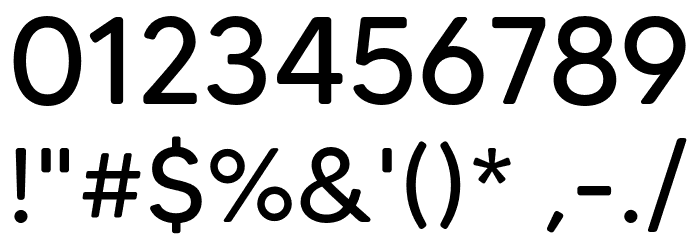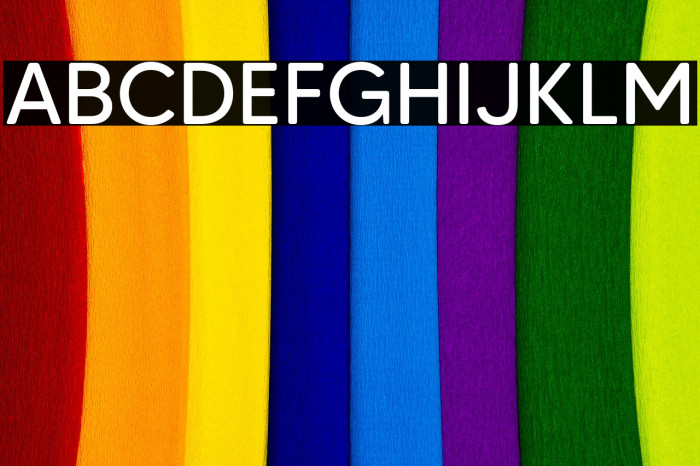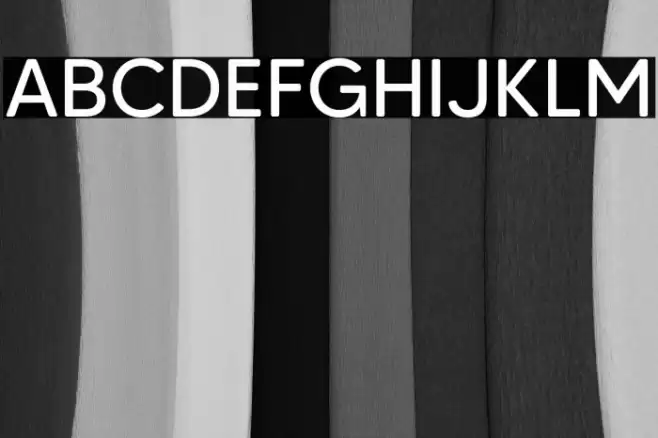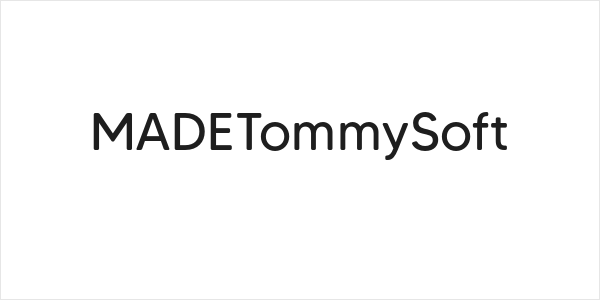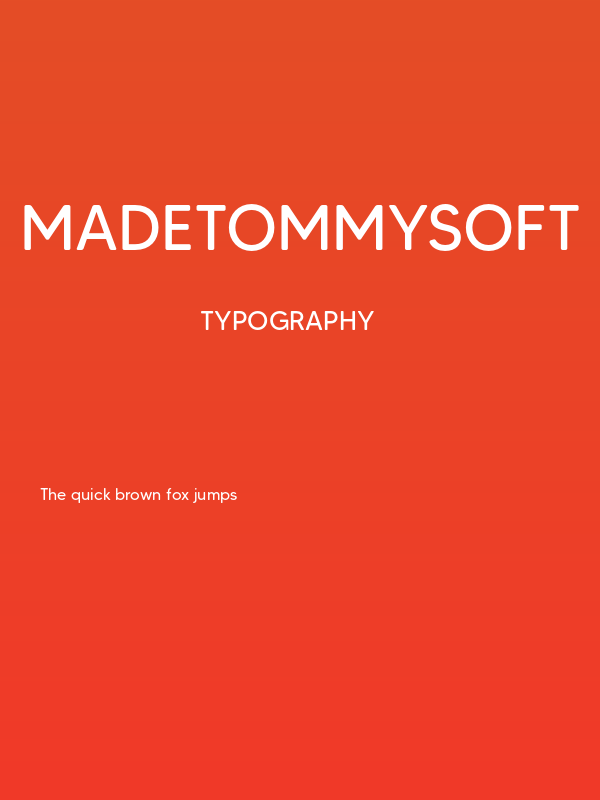
MADETommySoft Font
MADETommySoft Description
This font features a clean and modern sans-serif style with smooth, rounded edges that convey a friendly and approachable tone. The characters are evenly spaced, providing excellent readability across both uppercase and lowercase letters. The numerals are consistent in height and style, matching the overall aesthetic of the alphabet. Special characters are designed with the same attention to detail, ensuring uniformity throughout. Its simplicity and clarity make it versatile for various design applications, from digital interfaces to print media.
| Proposed Projects | Ideal for branding, web design, user interfaces, and print materials where clarity and modernity are key. |